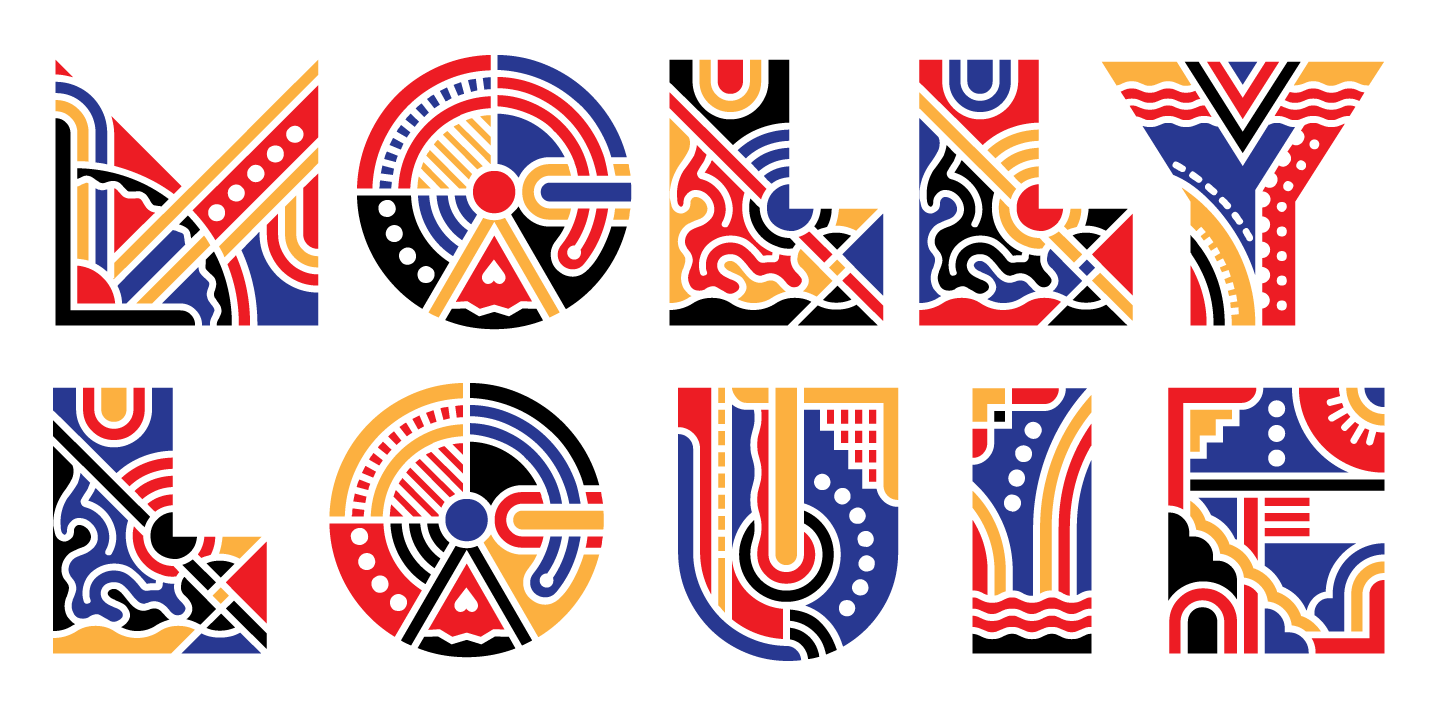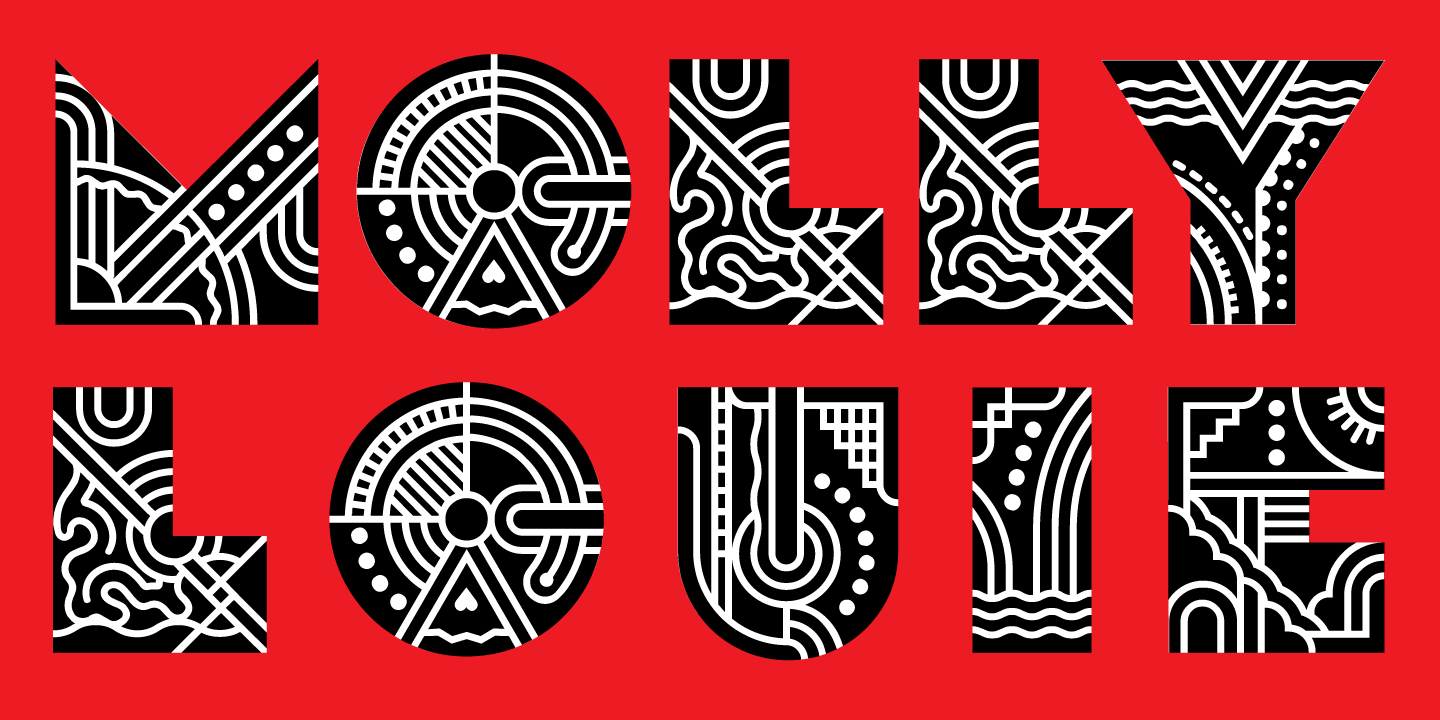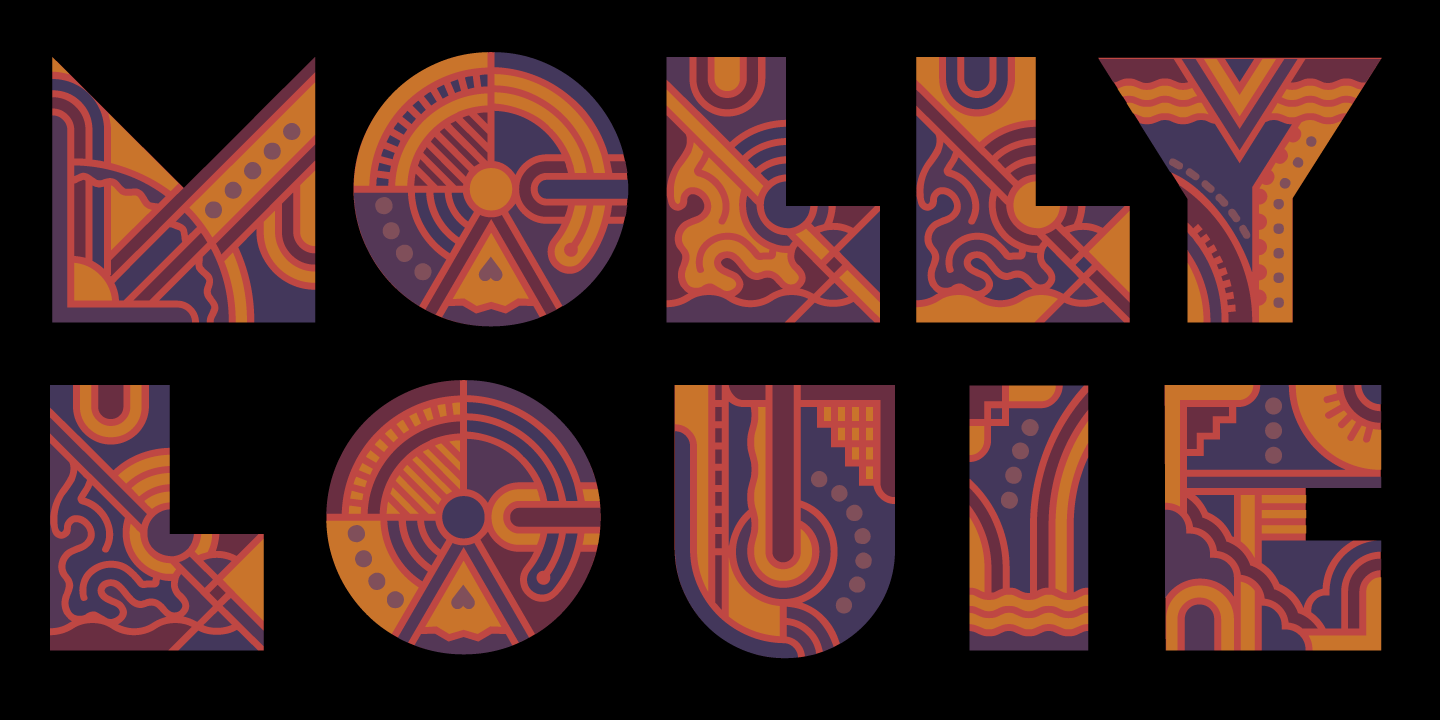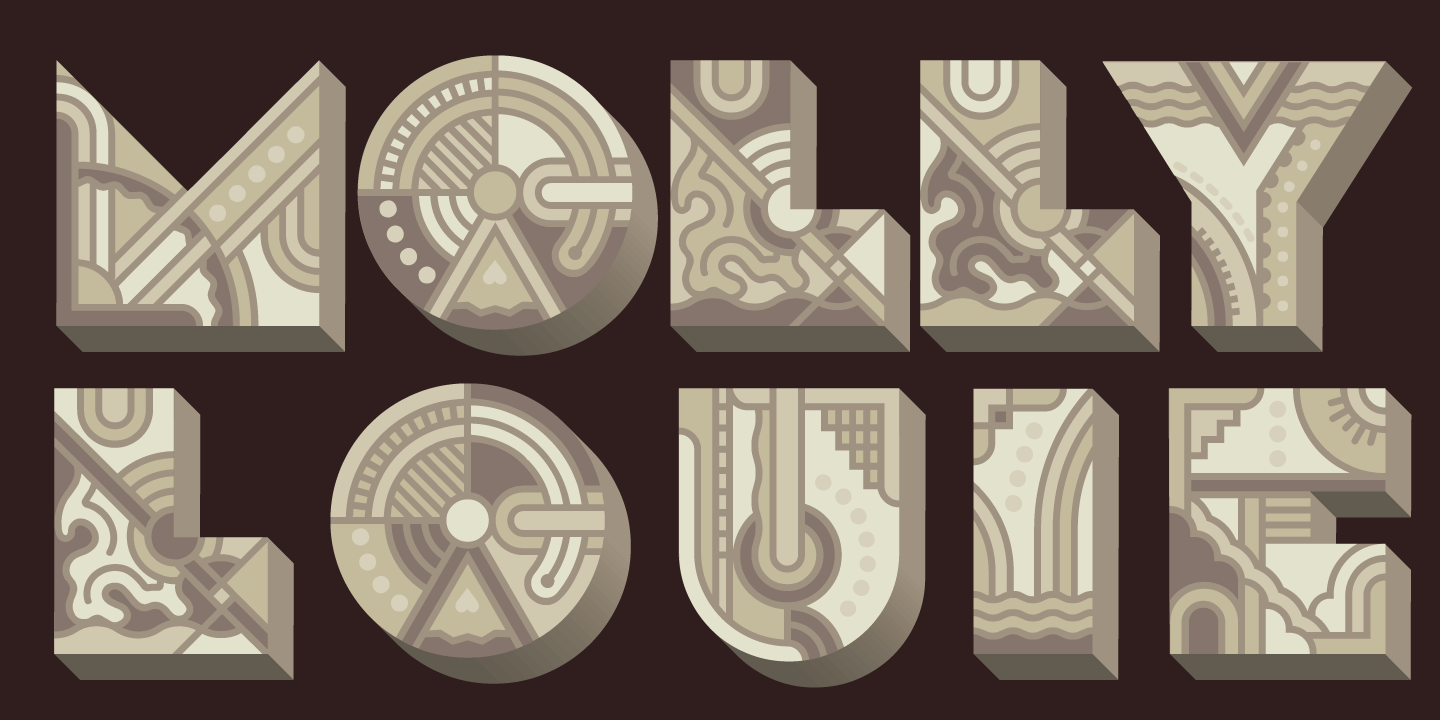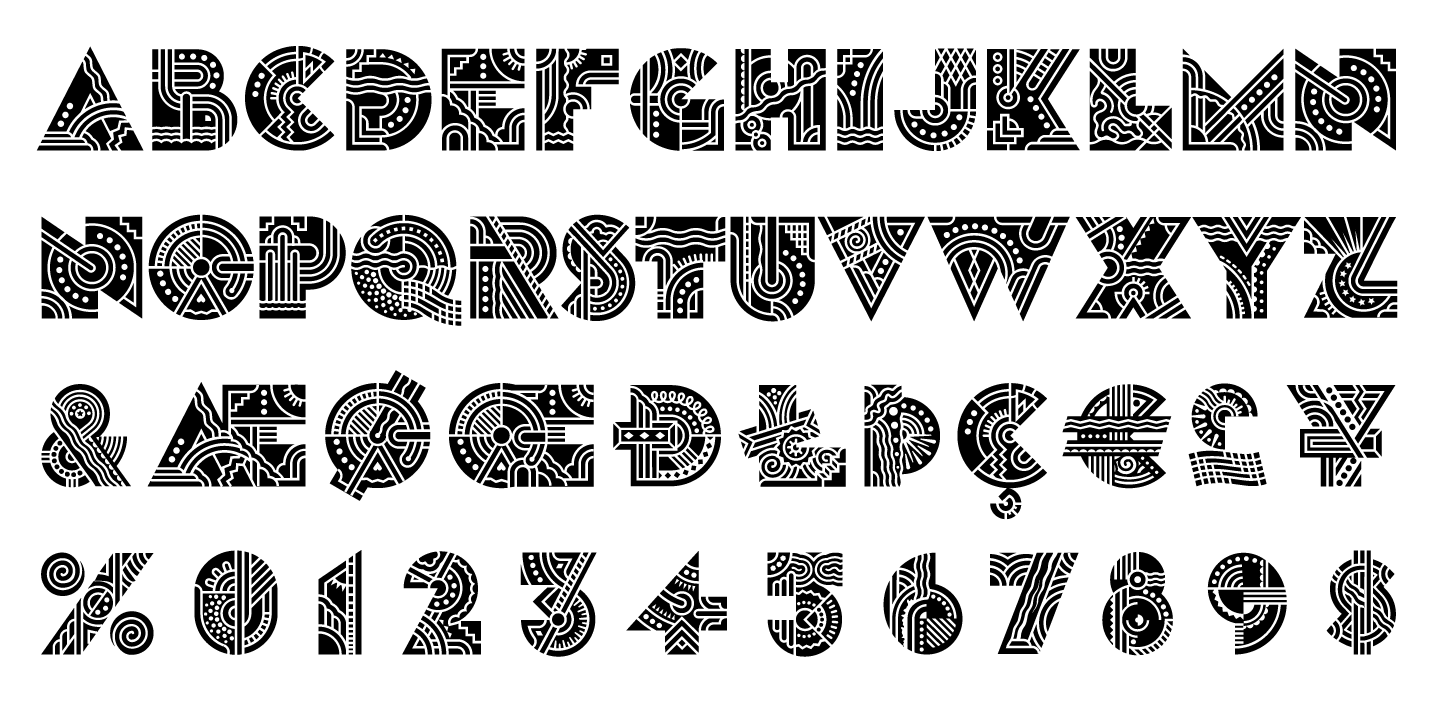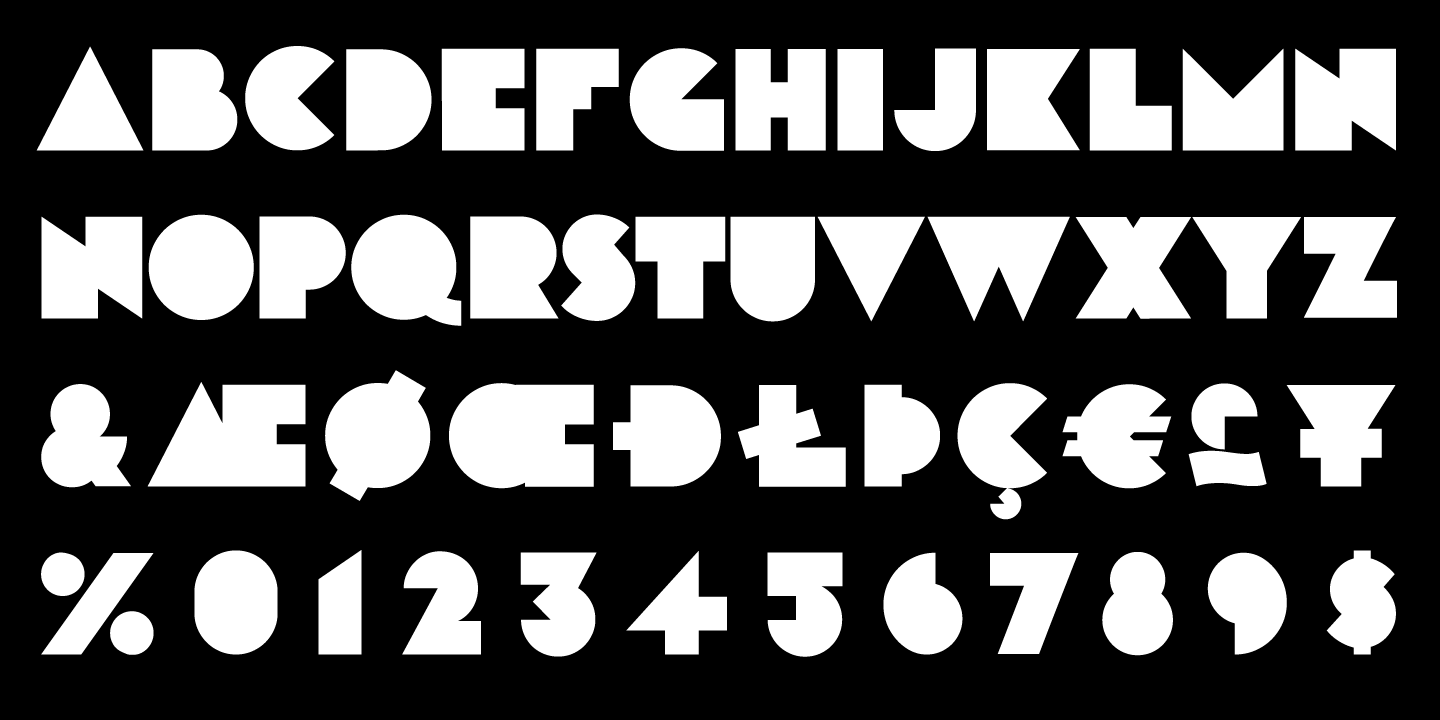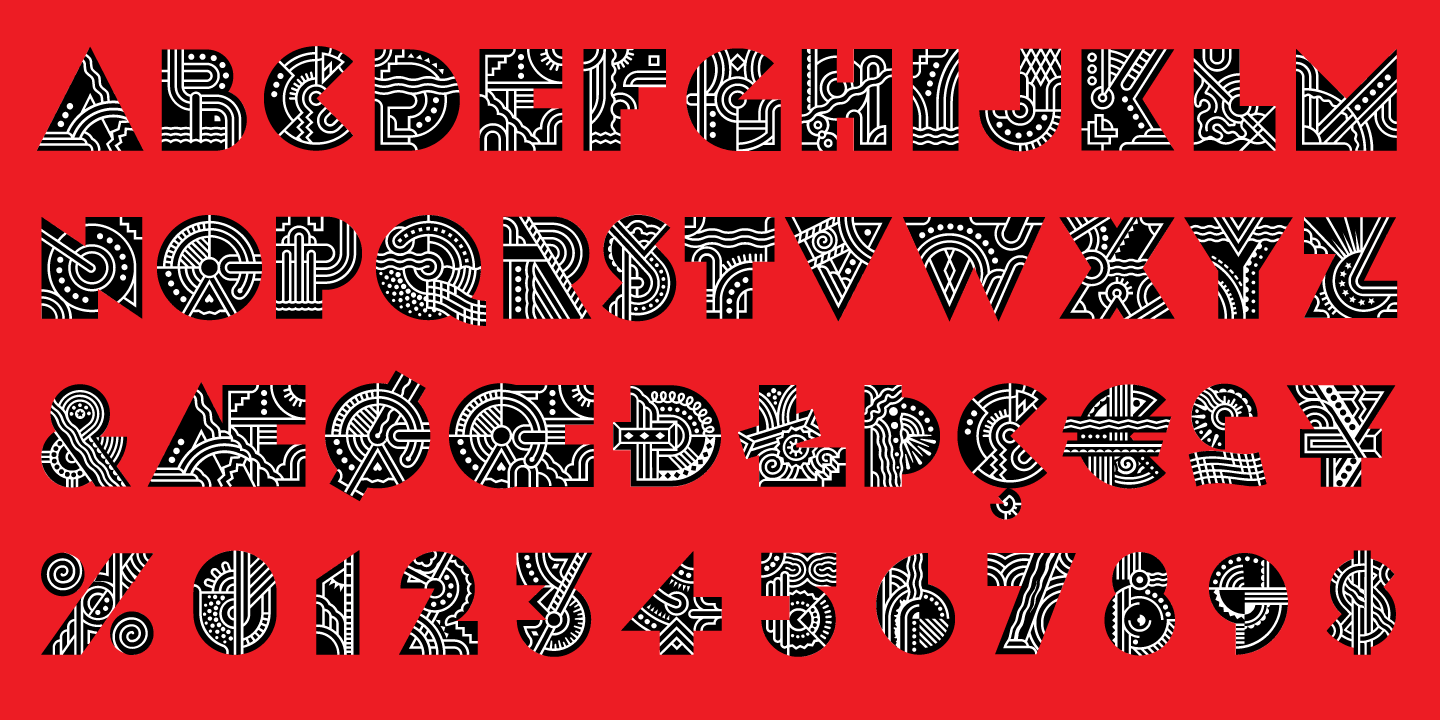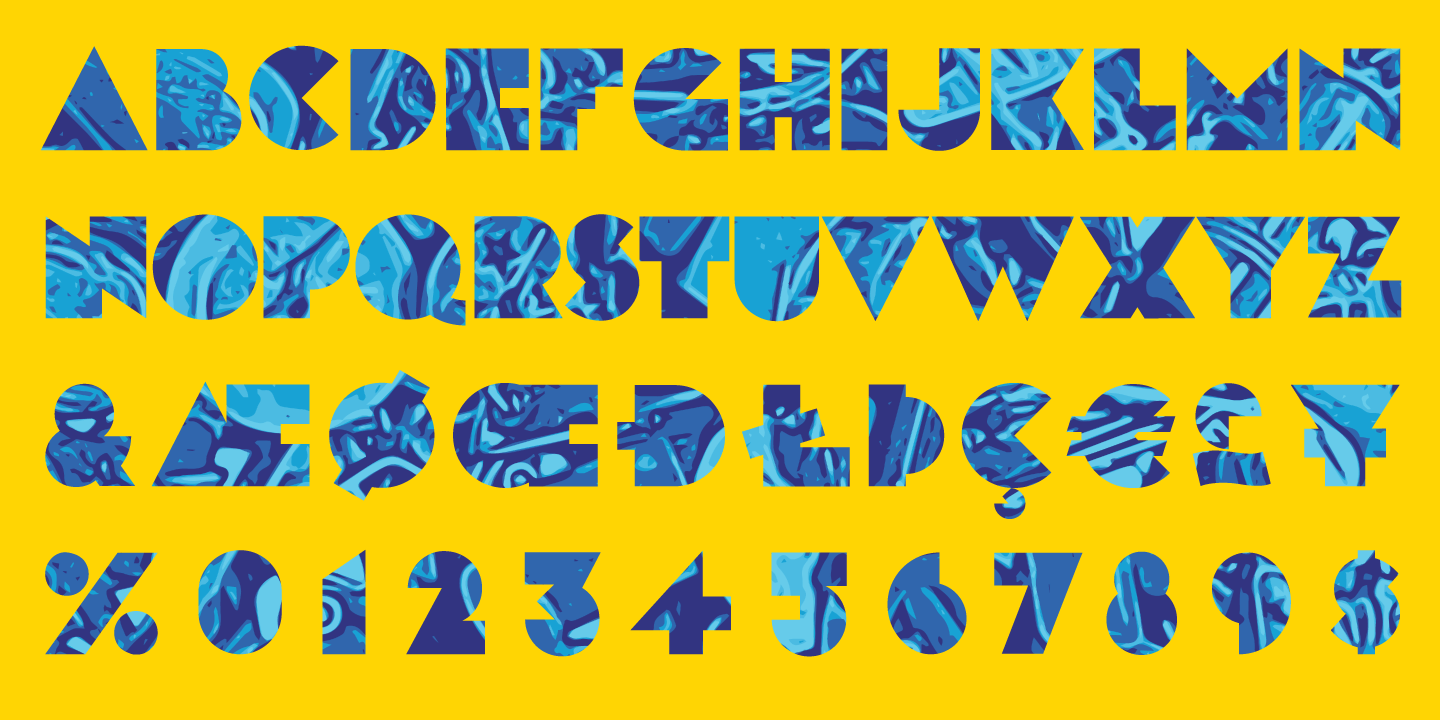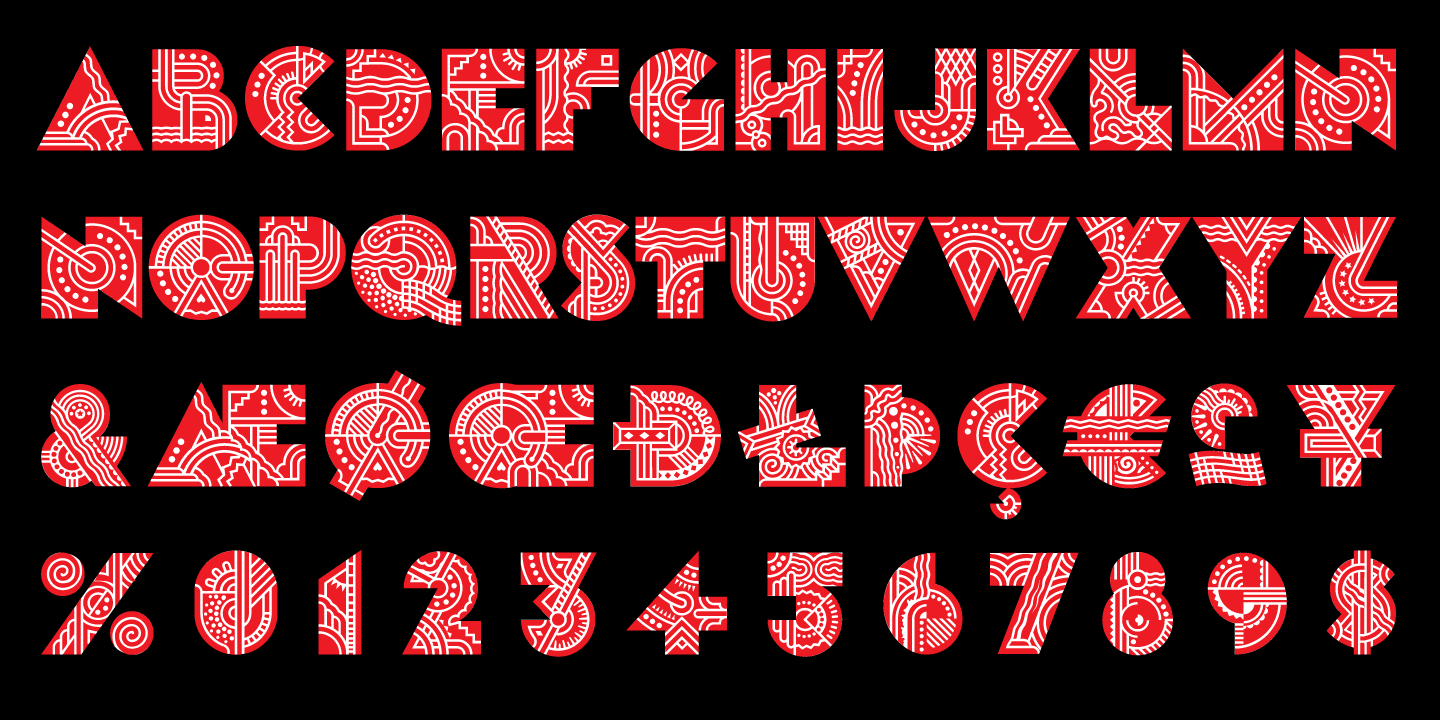
Molly Louie
Conceived on a cold winter evening to the hot Jazz of the Eri Yamamoto Trio at Arthur's Tavern in the Village, font Molly Louie is best described by the person for whom it was named. "Very intricate, like a whole little world in each of them" and "The solid is nice too, like little cut up sandwiches."
The detailed and solid versions facilitate a variety of two-color applications. While you might not use this decorative display font at smaller sizes, you are encouraged to let your imagination take it to places you might never have suspected.